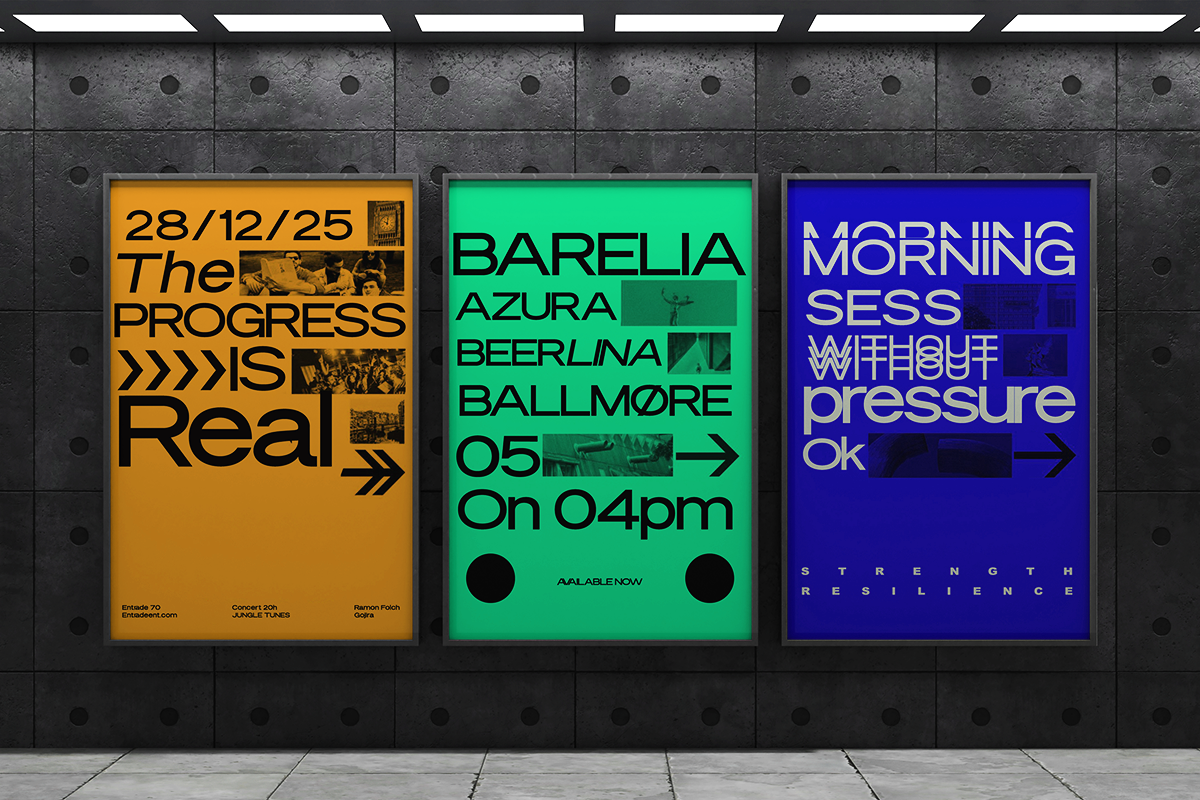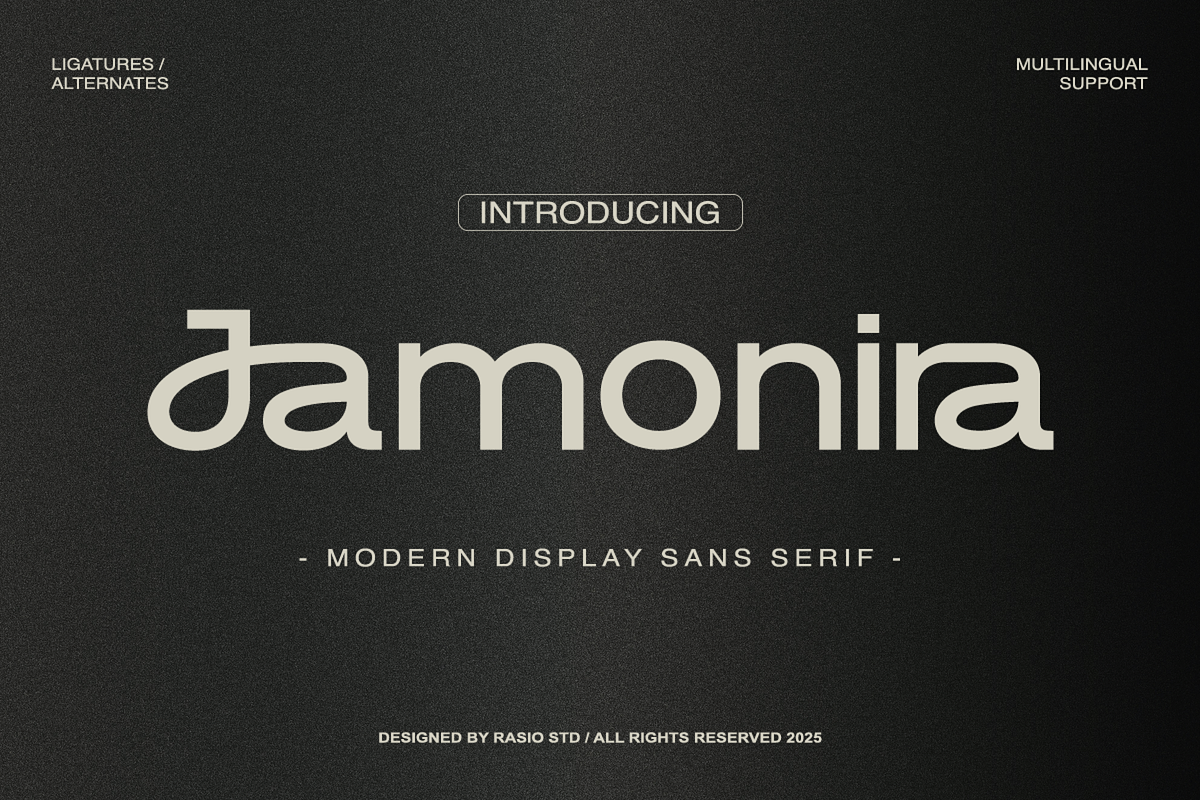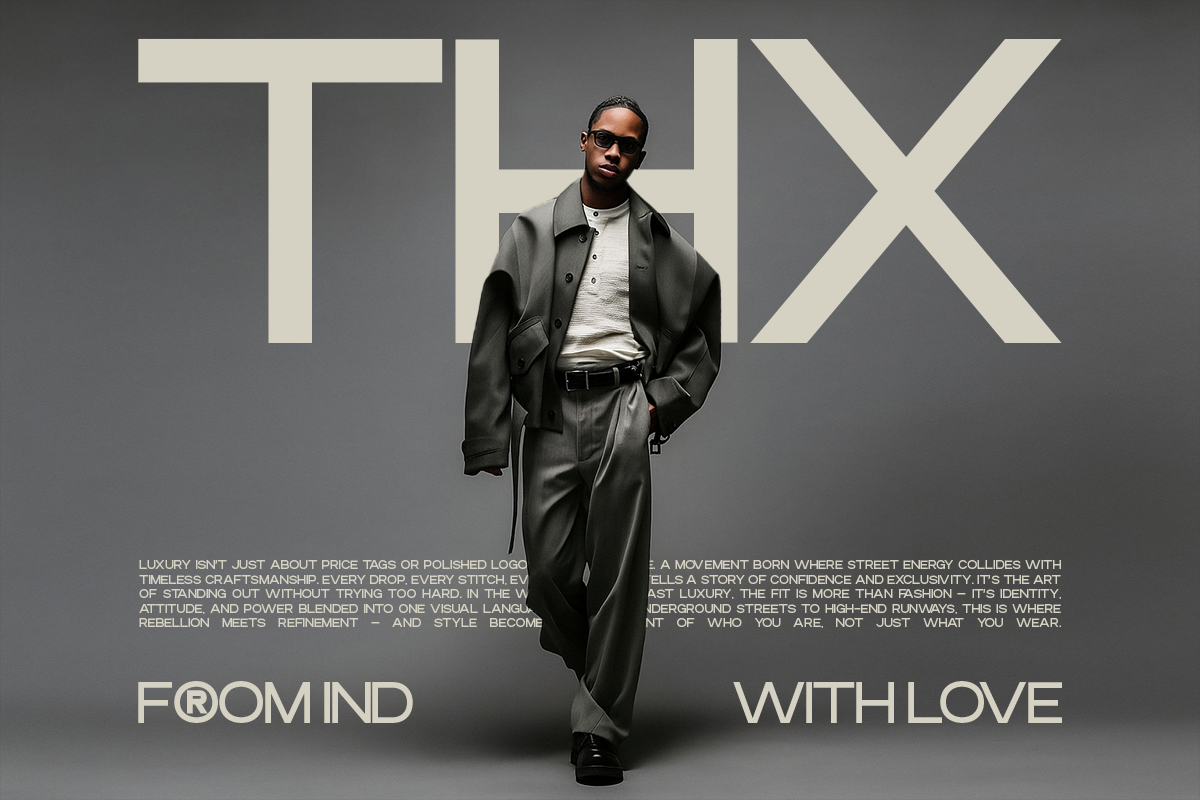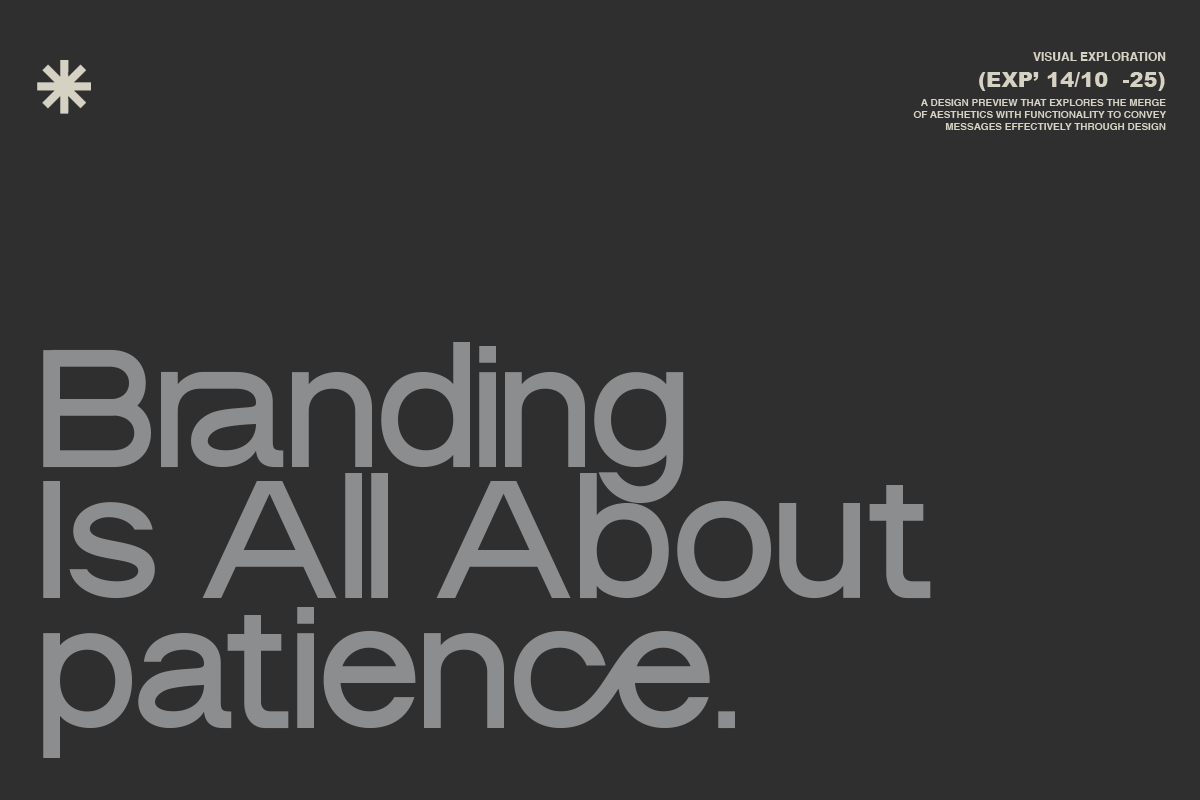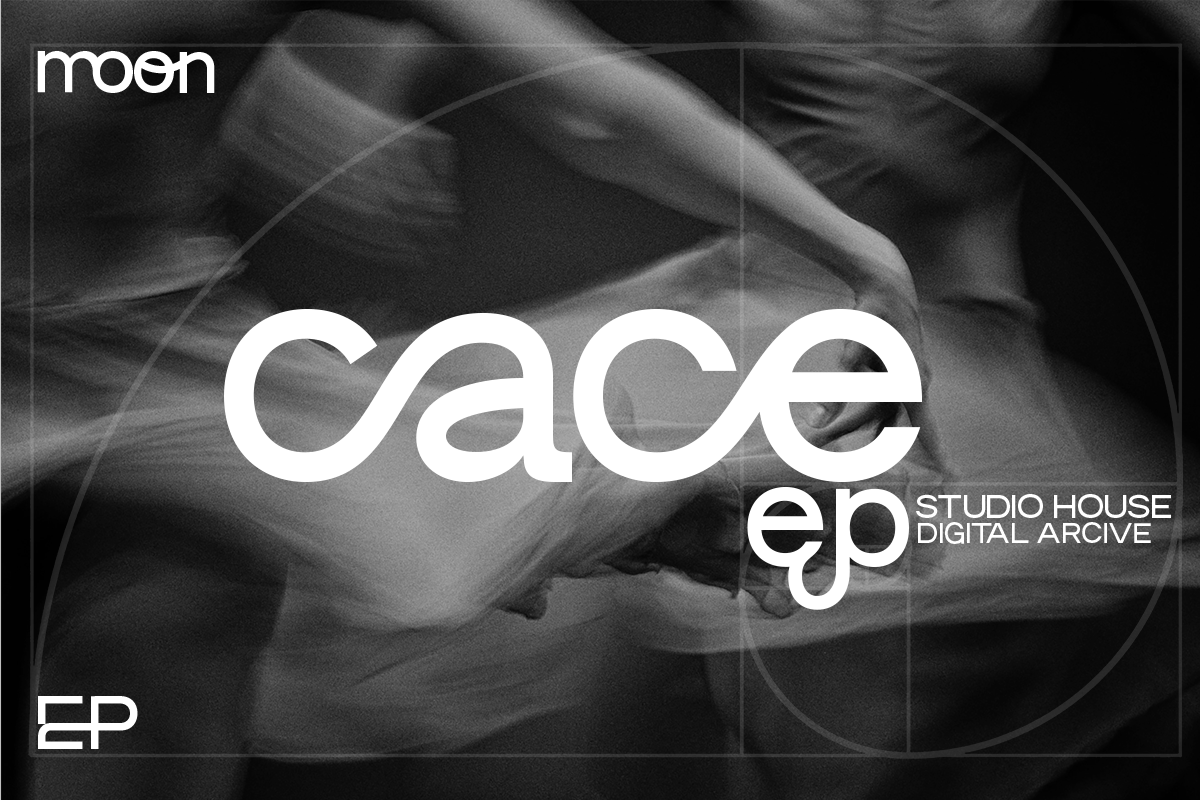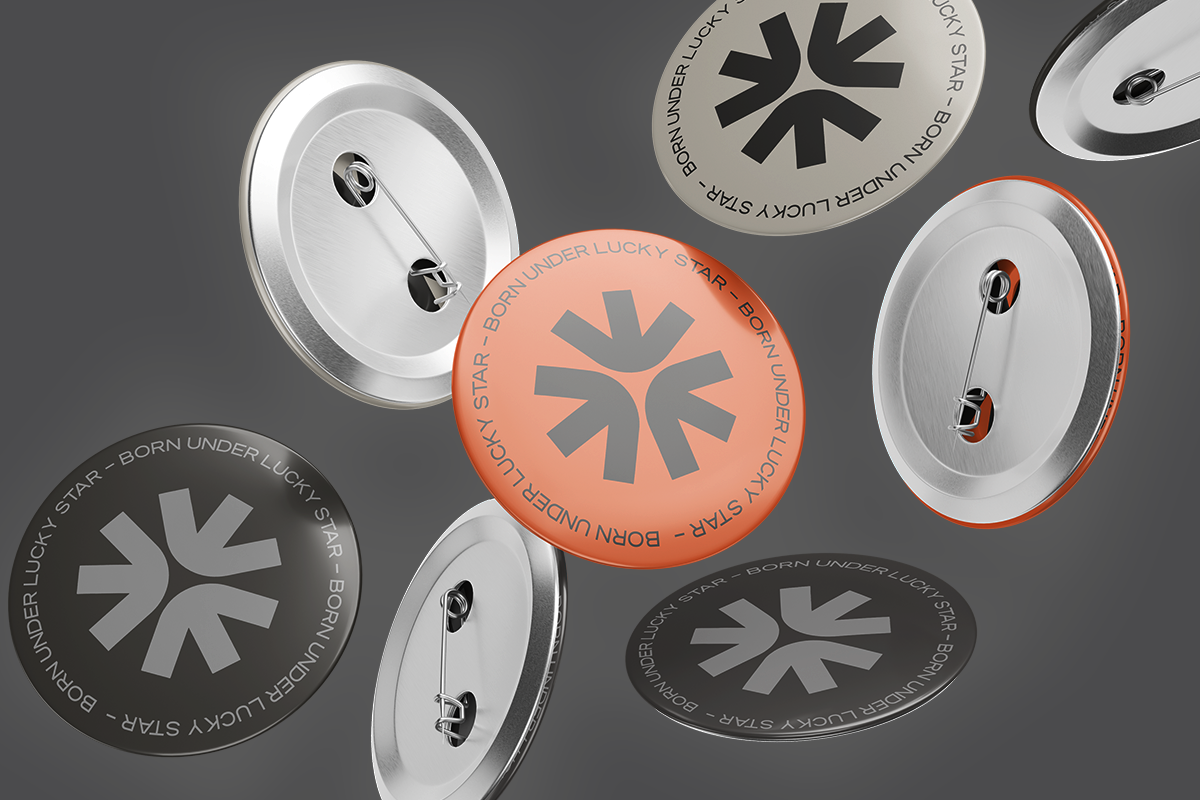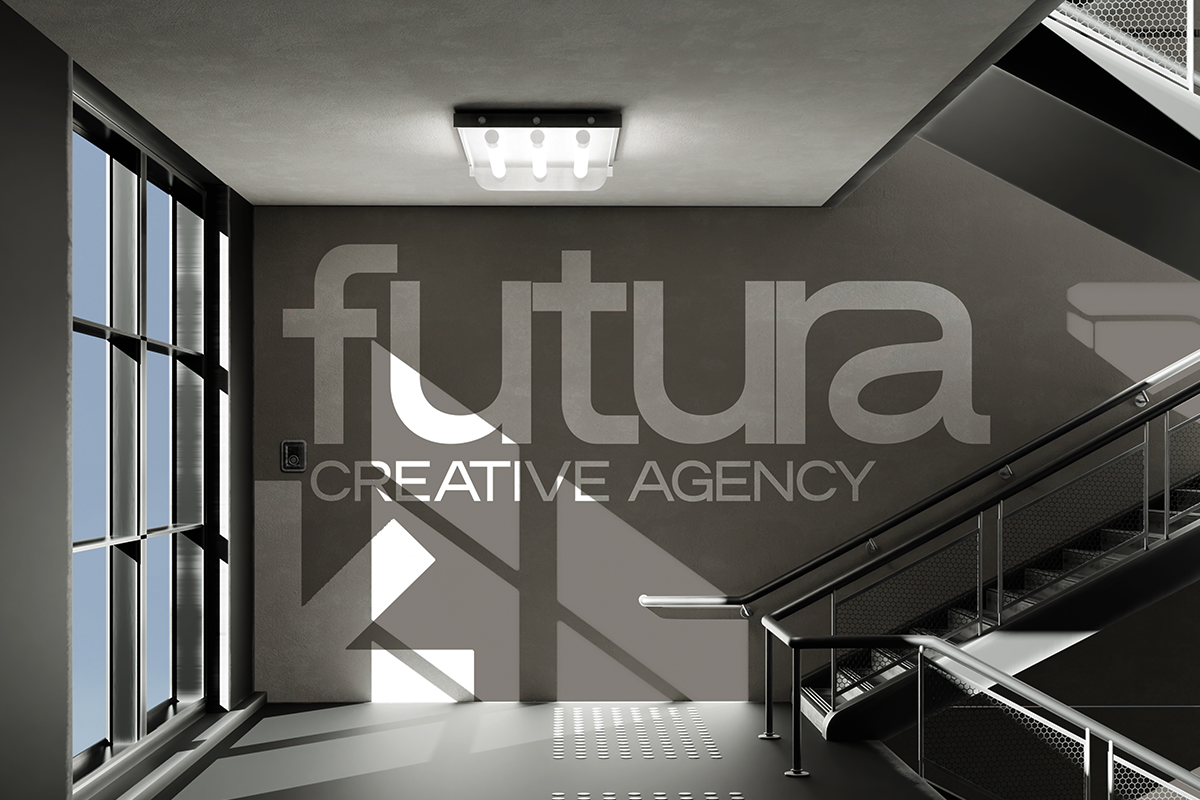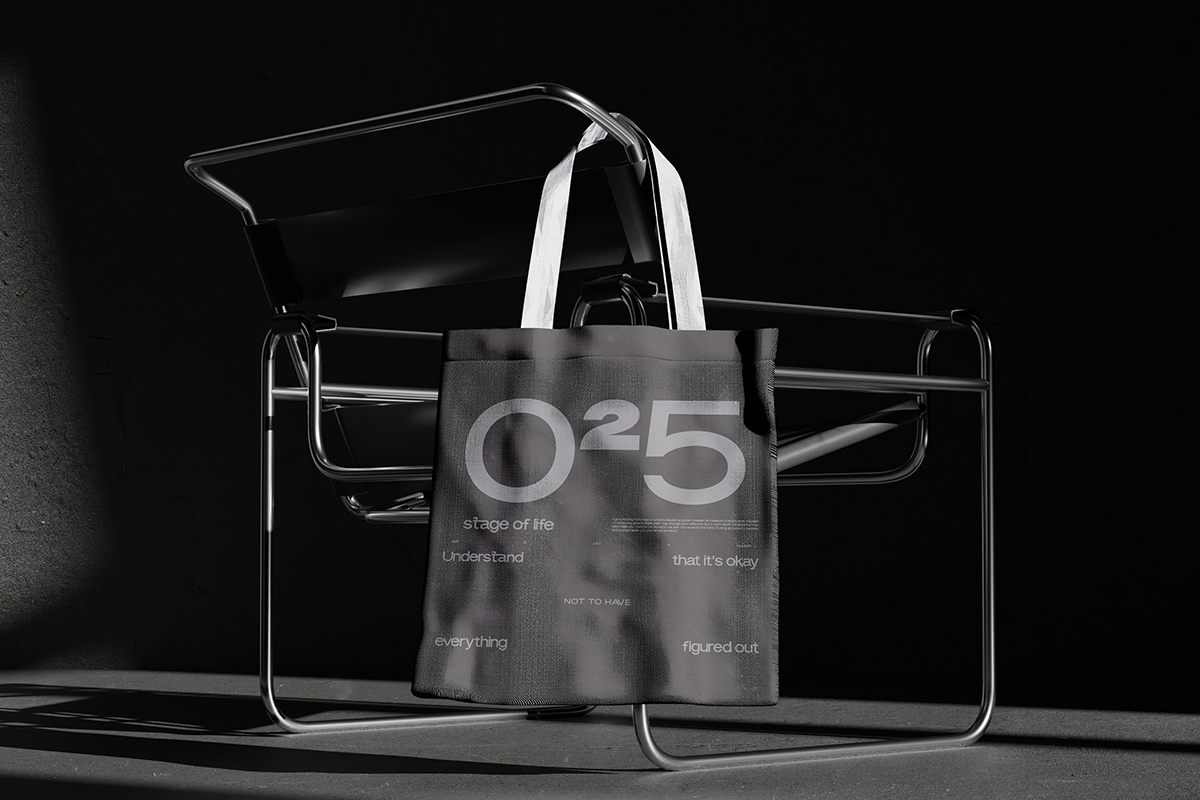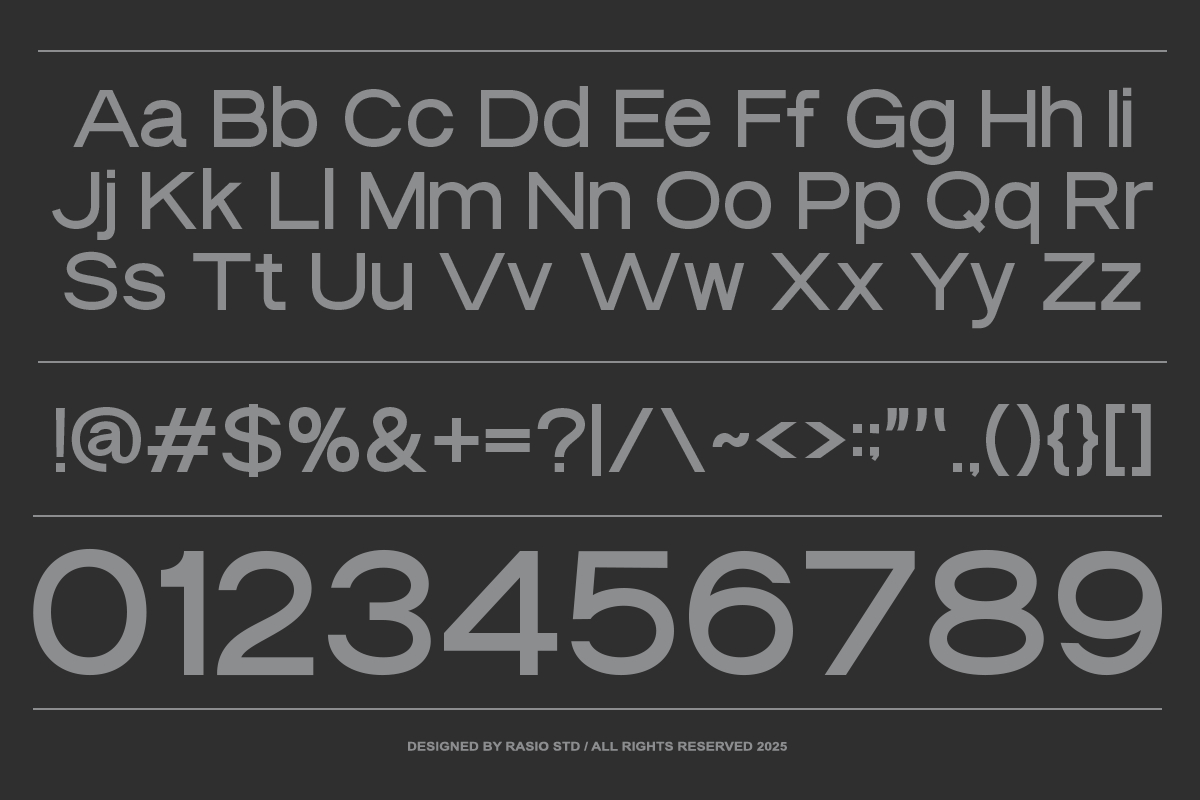
Jamonira Modern Display Sans Font
Jamonira Display Sans Serif Font is a refined fusion of modernism and geometric precision. With clean structure, fluid alternates, and contemporary proportions, it creates a professional and futuristic tone ideal for digital branding, tech interfaces, and editorial design. The font’s unique alternates and ligatures offer stylistic flexibility, while its smooth letterforms deliver a high-end, minimal look. Perfect for designers seeking sophistication and simplicity, Jamonira brings clarity, balance, and creativity to any visual layout. Its multilingual support ensures usability across global projects.
Relevance and Use Cases is perfect for technology branding, digital interfaces, modern editorials, minimalist packaging, futuristic poster design, and clean corporate identities that need professional geometric balance and elegance. Define your modern identity with Jamonira Display Sans Serif Font a geometric, elegant, and futuristic typeface designed to deliver clarity, style, and innovation across every visual platform.
- Clean modern sans serif with a minimal and balanced geometric foundation
- Smooth rounded terminals that create a soft and approachable visual tone
- Subtle grotesk influence with refined proportions for contemporary aesthetics
- Uniform stroke weight for clarity and consistency across all characters
- Optimized spacing and kerning for strong readability in large headlines
- Brand identity systems that require a clean, modern, and versatile tone
- UI/UX design templates for digital products, dashboards, and mobile apps
- Editorial layouts, tech magazines, and contemporary publications
- Product packaging and labels with a minimal and structured aesthetic
- Social media templates and marketing visuals with a modern, professional look